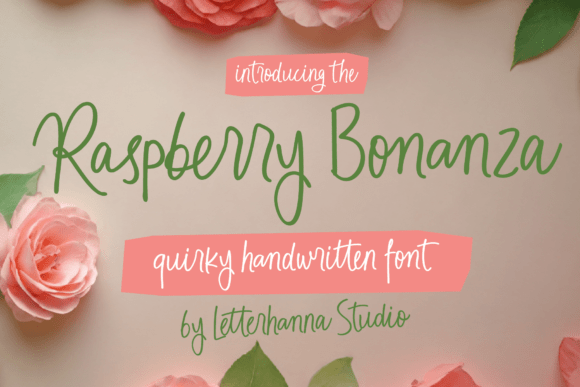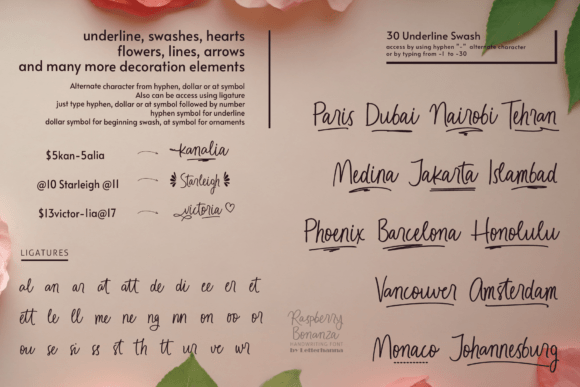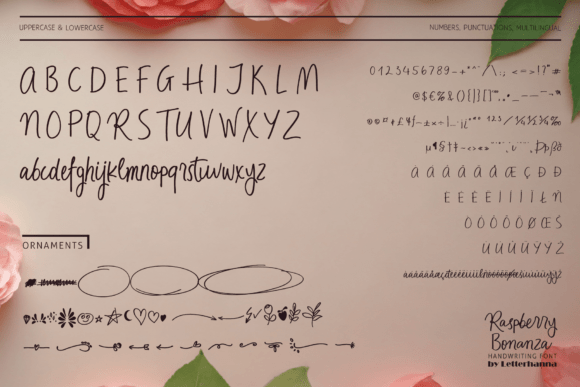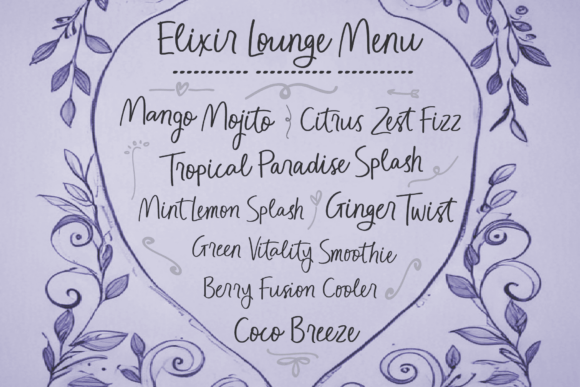
Raspberry Bonanza Font: A Cute Handwritten Script for Playful Branding!
About the Raspberry Bonanza Font
Welcome to the world of Raspberry Bonanza Font, a typeface that will inspire your next great project. Get ready for a burst of personality with Raspberry Bonanza! This fun and playful handwriting script font is packed with charm, featuring quirky letterforms and a unique, handcrafted feel. Perfect for branding, invitations, packaging, and creative projects that need a touch of whimsy. Whether you’re designing a bold statement or a casual, artistic vibe, Raspberry Bonanza brings a fresh and lively energy to your work.
Raspberry Bonanza thrives in applications requiring a lighthearted and approachable feel. It excels in headlines, short text blocks on packaging, and invitations where its playful nature adds personality. However, its informal style is unsuitable for body text or UI elements requiring high legibility. Avoid using it in long paragraphs or situations demanding a formal tone.
For optimal pairings, consider complementing its handwritten charm with a clean sans-serif like Open Sans for body copy or a geometric sans-serif like Montserrat for a more modern contrast. A classic serif like Garamond can lend a touch of sophistication, balancing the font’s playful energy with traditional elegance.
The font’s core personality is undeniably playful and friendly, making it ideal for brands targeting a younger demographic or those wishing to project a fun, approachable image.